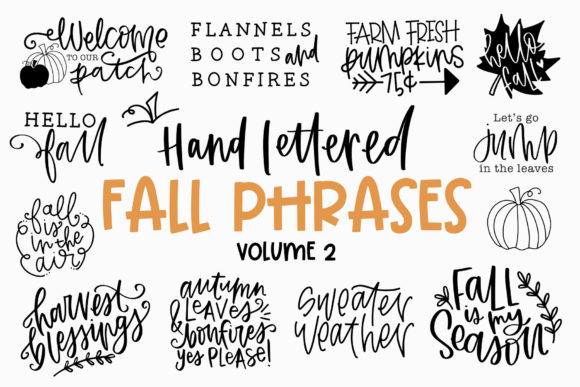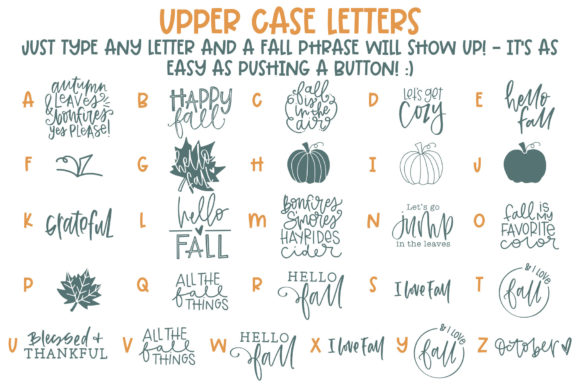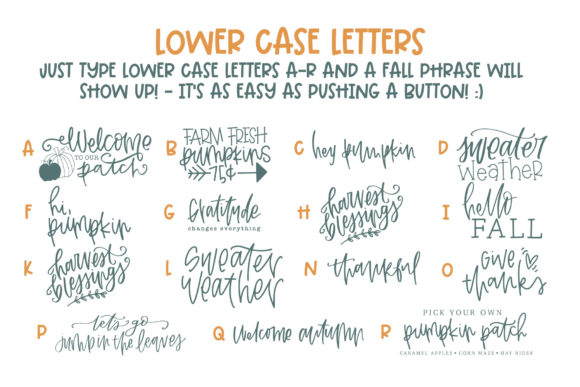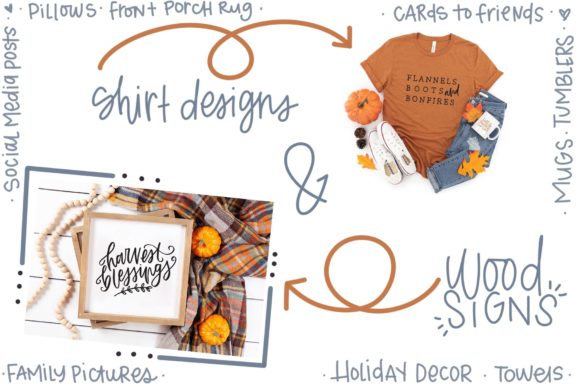
Fall Phrases Font
About Fall Phrases Font
“Fall Phrases” is a charming decorative font that captures the authentic feel of the fall season. With its unique and stylish letterforms, this font is perfect for adding a touch of autumnal beauty to your designs. Whether you’re creating invitations, stationary art, social media posts, or greeting cards, “Fall Phrases” offers a range of possibilities to make your projects stand out.
The distinctive character of “Fall Phrases” lends itself well to creating visually appealing and eye-catching designs. Its ornate and intricate letterforms exude a sense of elegance and warmth, perfectly complementing the cozy and nostalgic atmosphere of the fall season.
When using “Fall Phrases” in your designs, consider its application as a decorative element or as a focal point. The font’s unique letterforms and embellishments can be utilized to create stunning invitations for fall-themed events such as weddings, parties, or seasonal gatherings. The font can also be used to design beautiful stationary art, adding a touch of sophistication and charm to your correspondence.
In the realm of digital design, “Fall Phrases” can enhance your social media posts, helping you create visually captivating and engaging content. Whether you’re announcing a special promotion, sharing fall-inspired quotes, or simply capturing the essence of the season, this font can add a delightful and festive touch to your visuals.
Greeting cards are another area where “Fall Phrases” can truly shine. The font’s intricate details and ornamental accents can be utilized to create cute and memorable cards for birthdays, thank you notes, or any occasion that calls for a special touch.
Remember to explore different design possibilities with “Fall Phrases.” Experiment with typography, colors, and layout to fully showcase the charm and authenticity of this decorative font. By doing so, you can create visually striking and appealing designs that capture the essence of the fall season.
Fall in love with “Fall Phrases” and let its authentic feel and unique decorative elements elevate your designs. With its ability to create gorgeous invitations, beautiful stationary art, eye-catching social media posts, and cute greeting cards, this font is sure to bring a touch of autumnal magic to your creative endeavors.